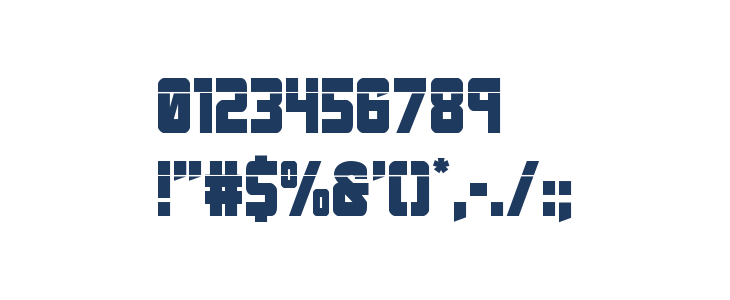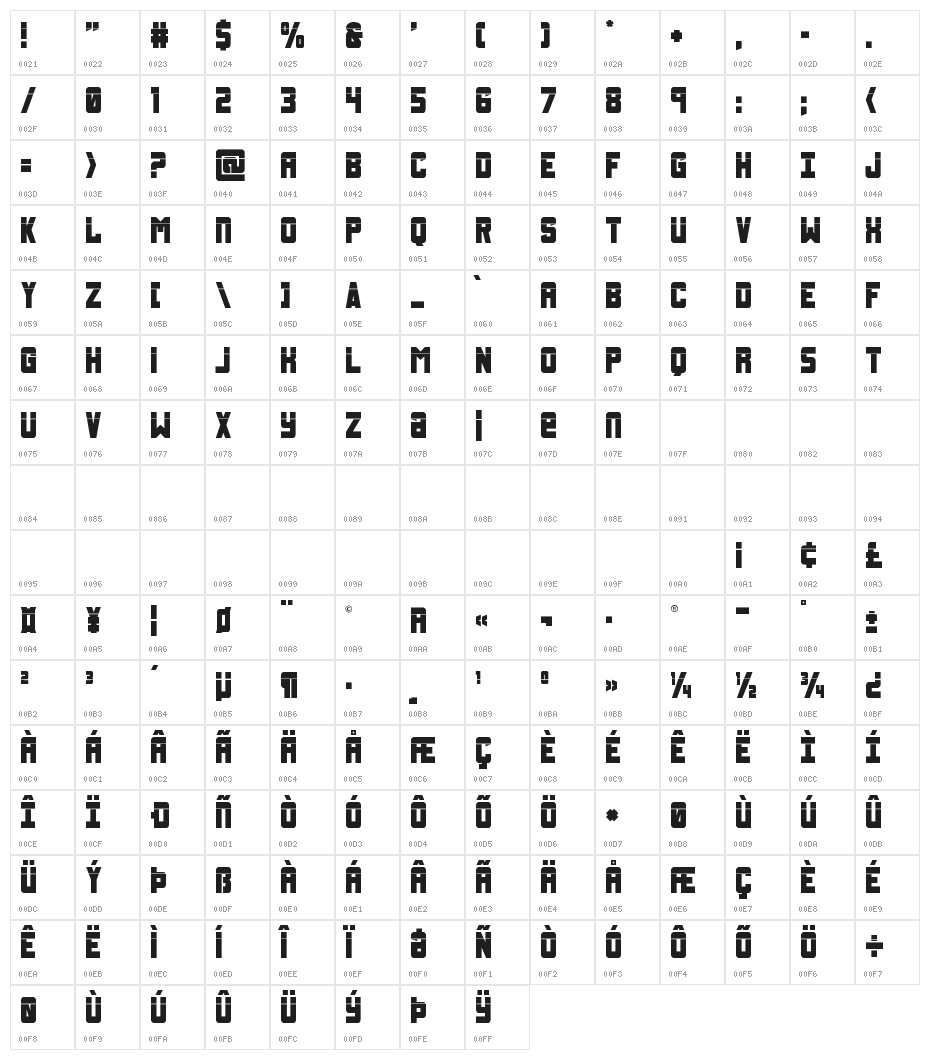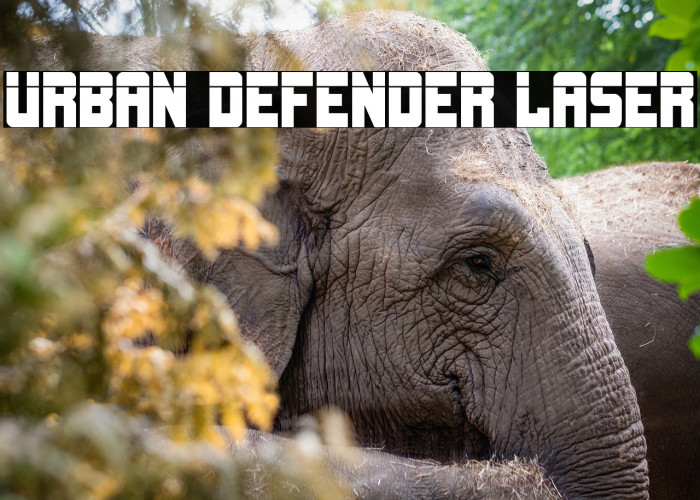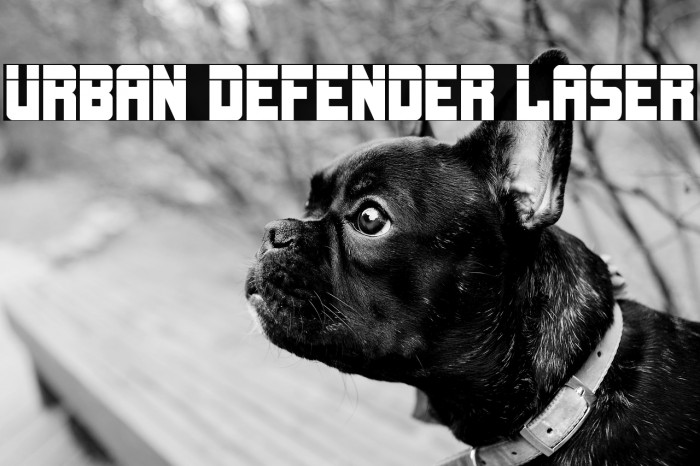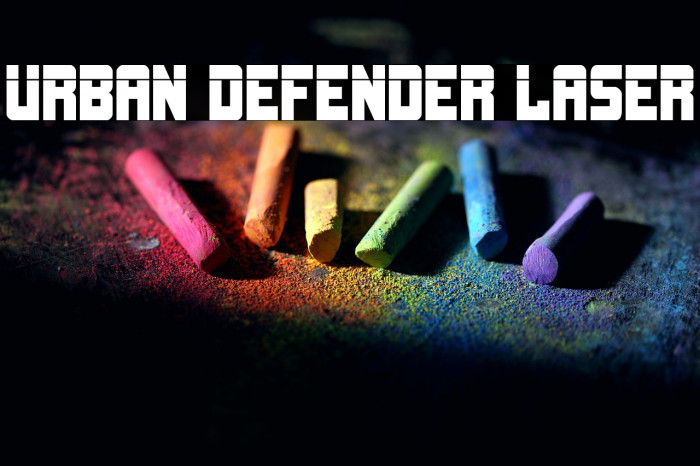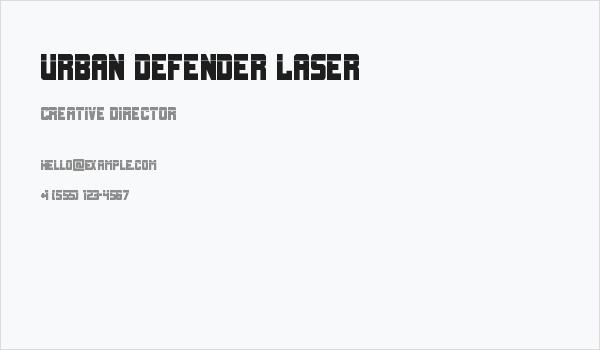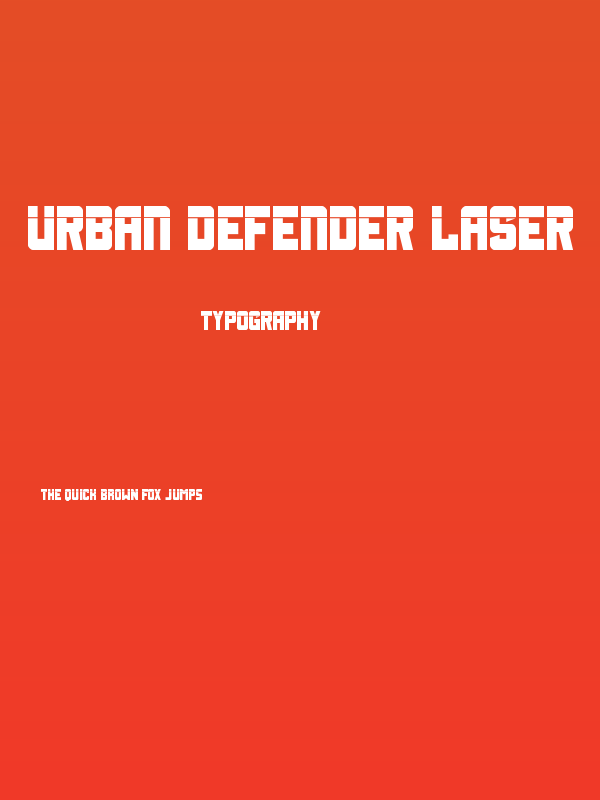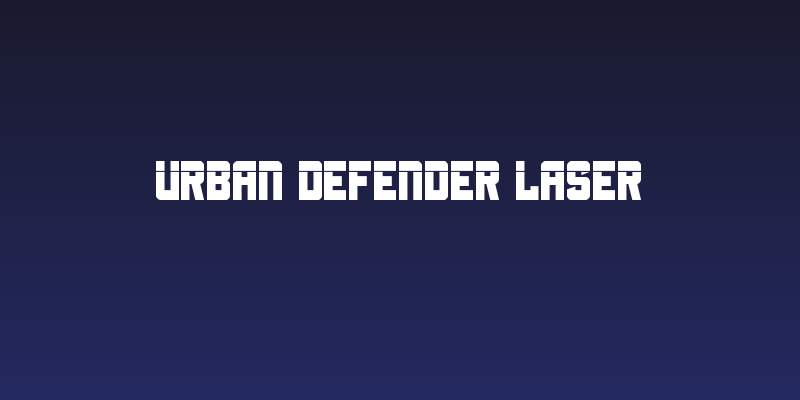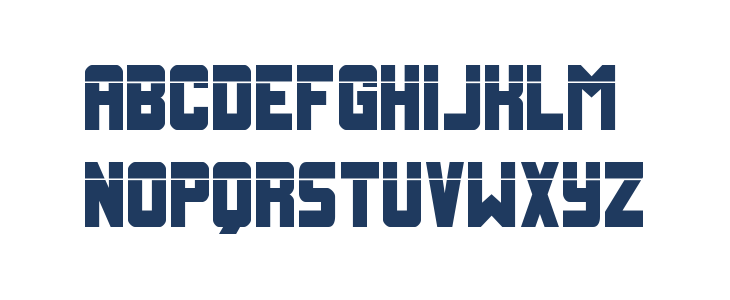
Urban Defender Laser Font
Urban Defender Laser Description
This font features a bold, geometric design with a futuristic and industrial feel. The characters are constructed with sharp angles and straight lines, giving them a blocky and robust appearance. The uppercase and lowercase letters maintain a consistent style, with a strong emphasis on symmetry and uniformity. The numbers and special characters follow the same design principles, ensuring a cohesive look across all glyphs. The font's distinct style makes it stand out, suitable for projects that require a modern and edgy aesthetic.
| Proposed Projects | Ideal for use in video game graphics, sci-fi movie posters, urban-themed branding, and technology-related advertisements. |